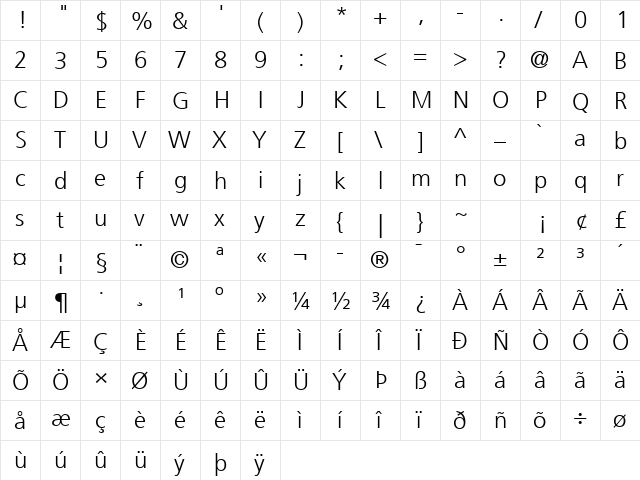
Frutiger LT Com 45 Light
| Foundry | Linotype GmbH |
| Designer | Adrian Frutiger |
Design Context for Frutiger LT Com Typeface
Frutiger LT Com is a composed and adaptable typeface that performs quietly and consistently across a wide range of design contexts. The delicate stroke weight brings airiness and refinement to layouts.